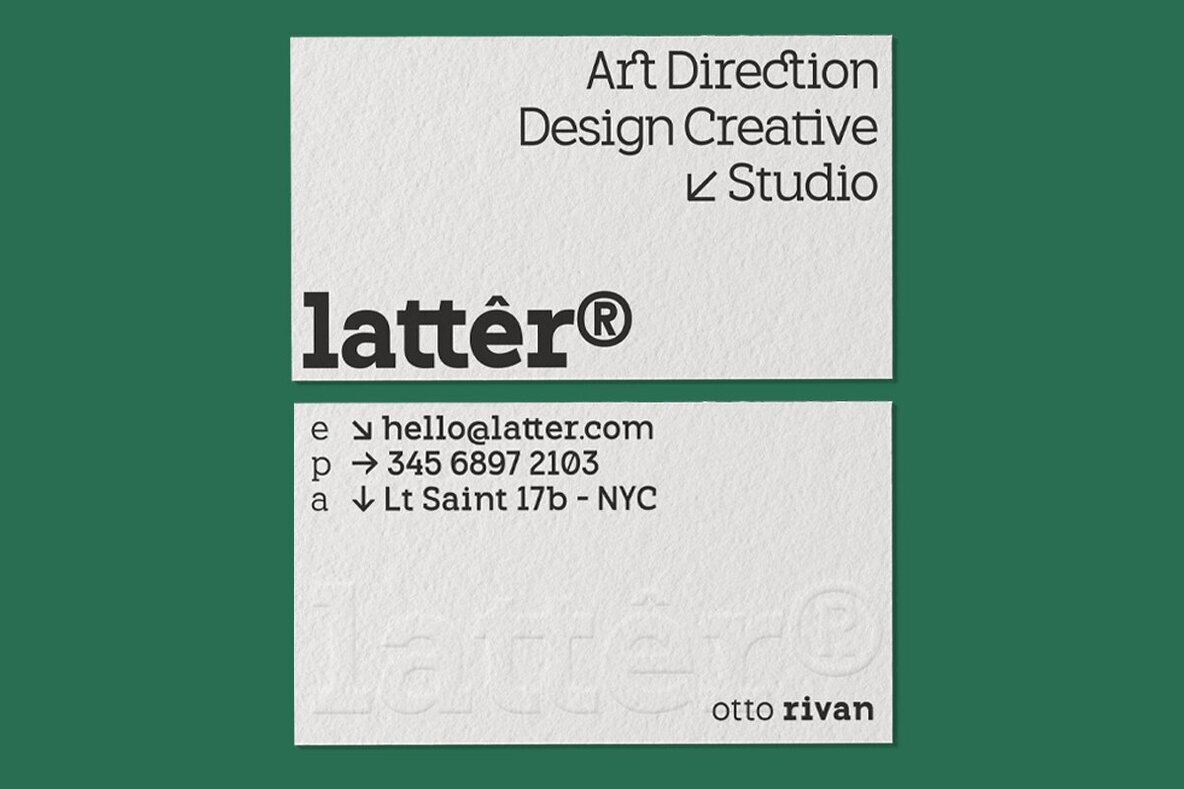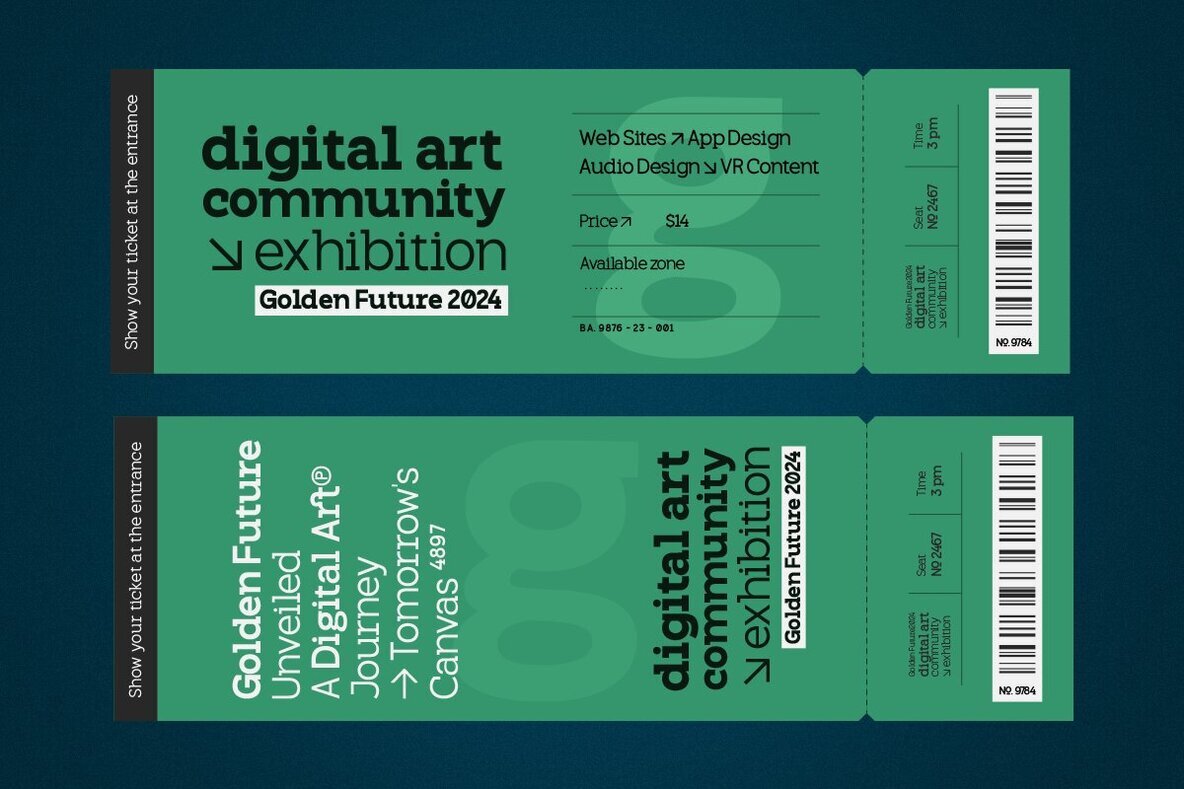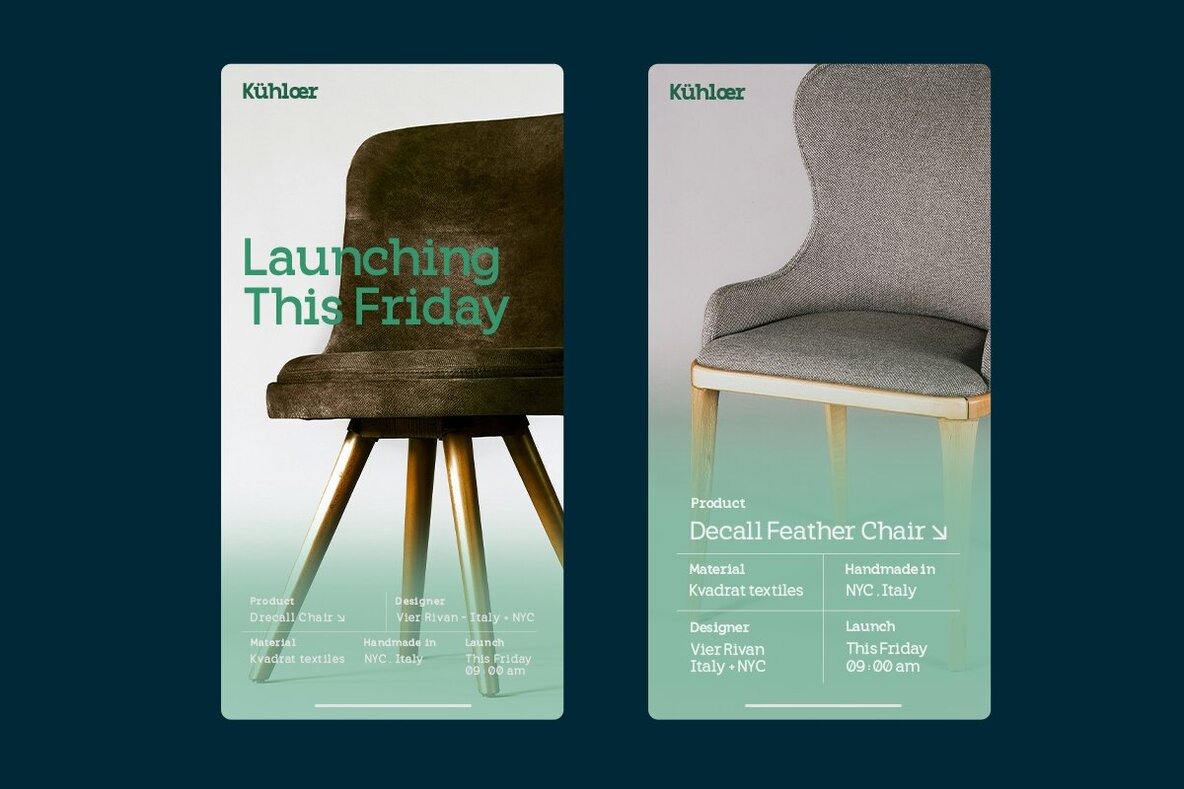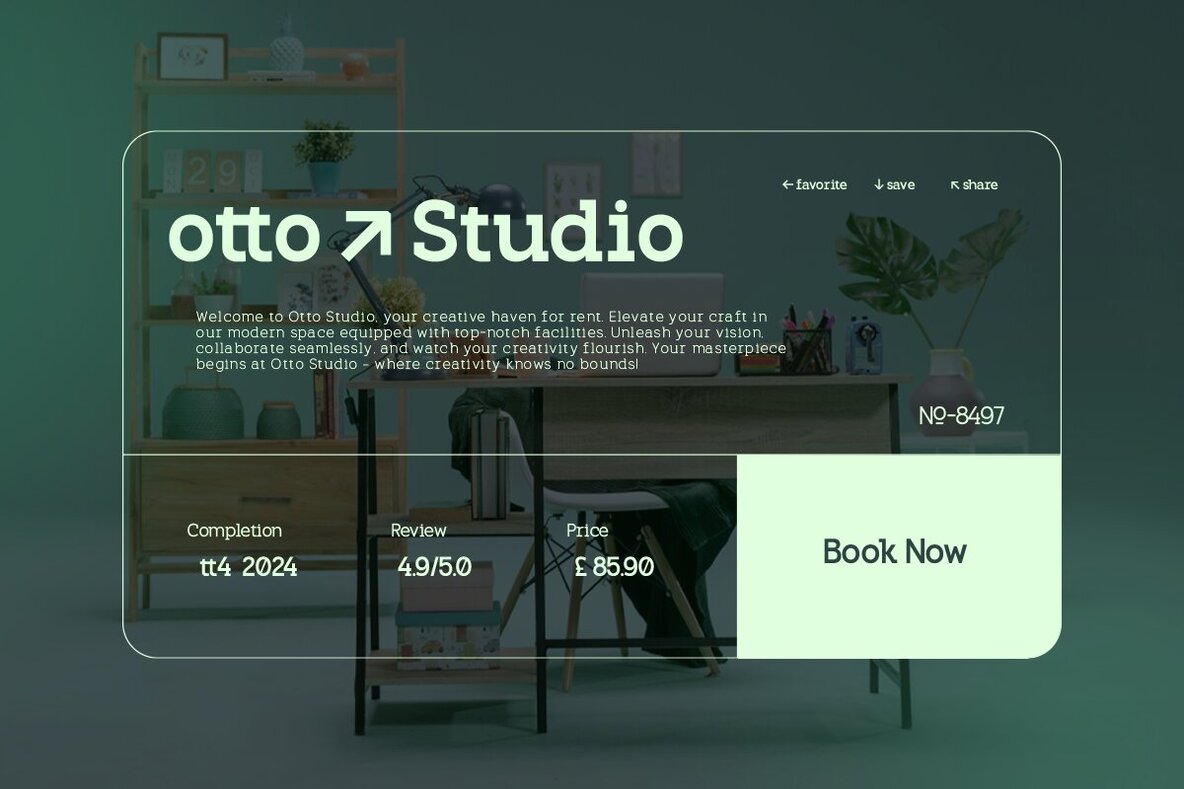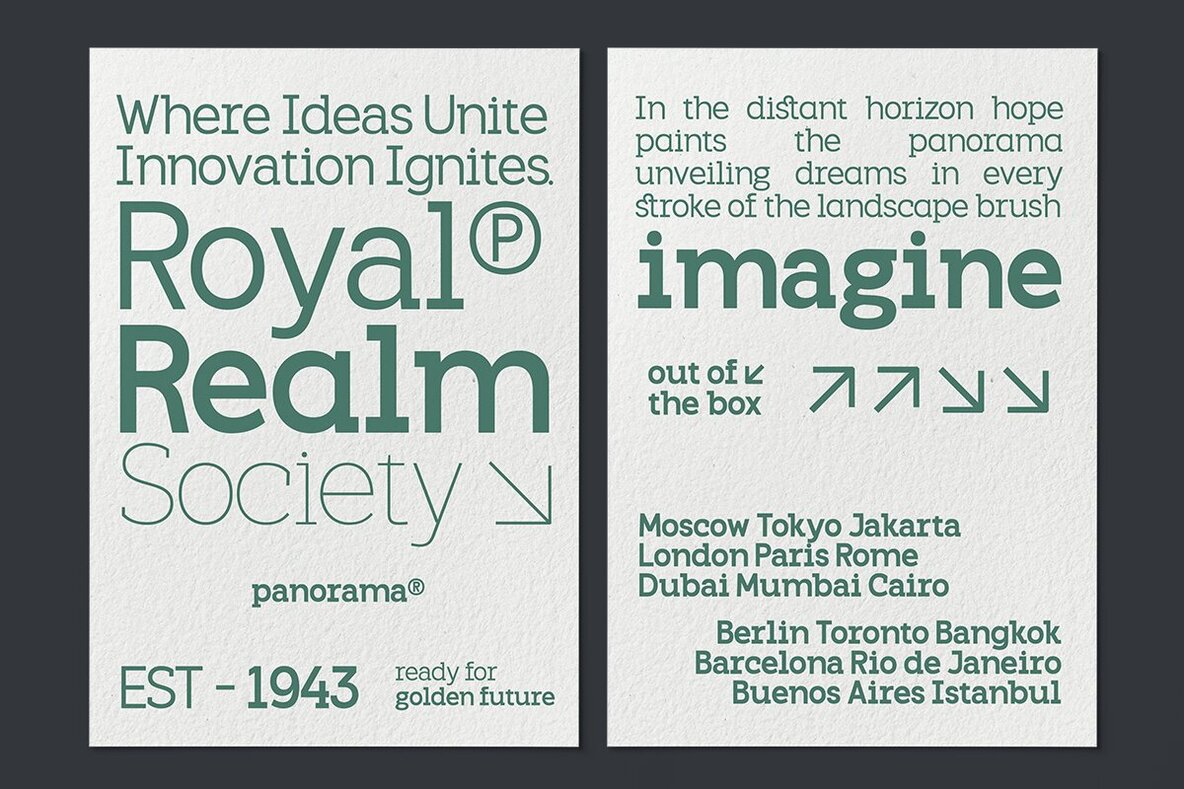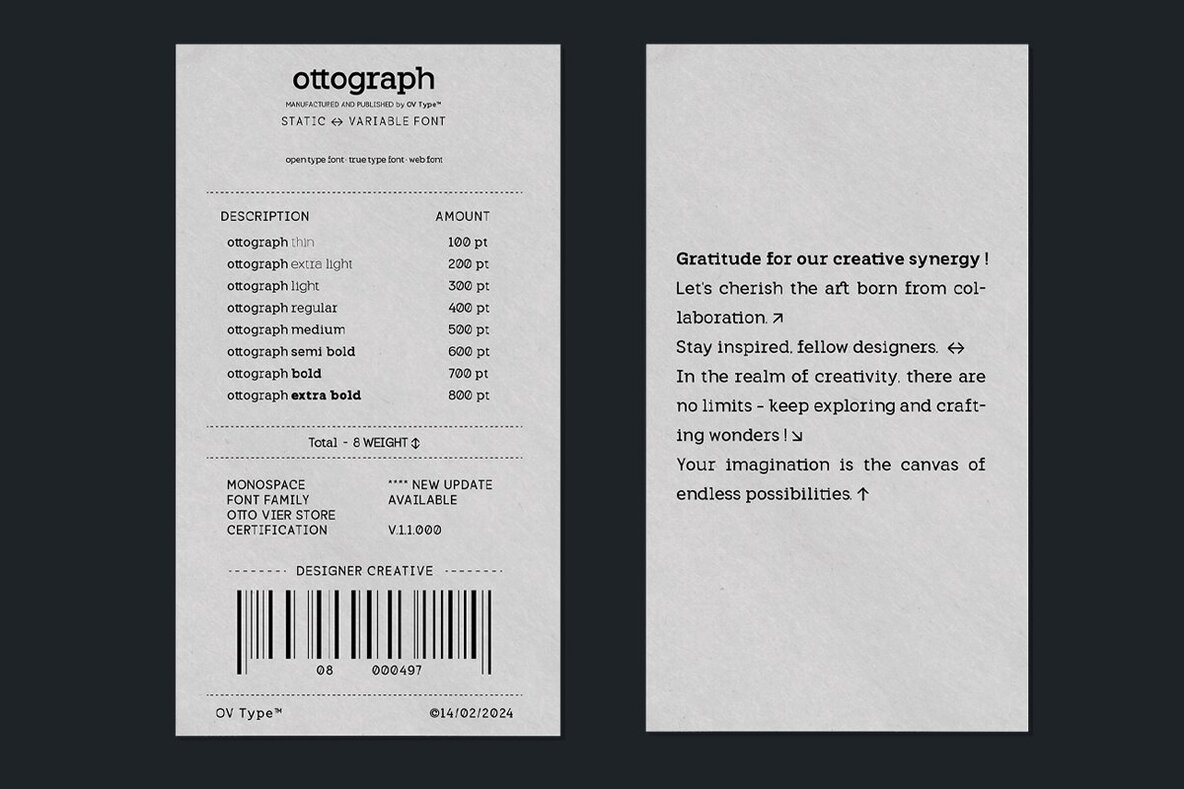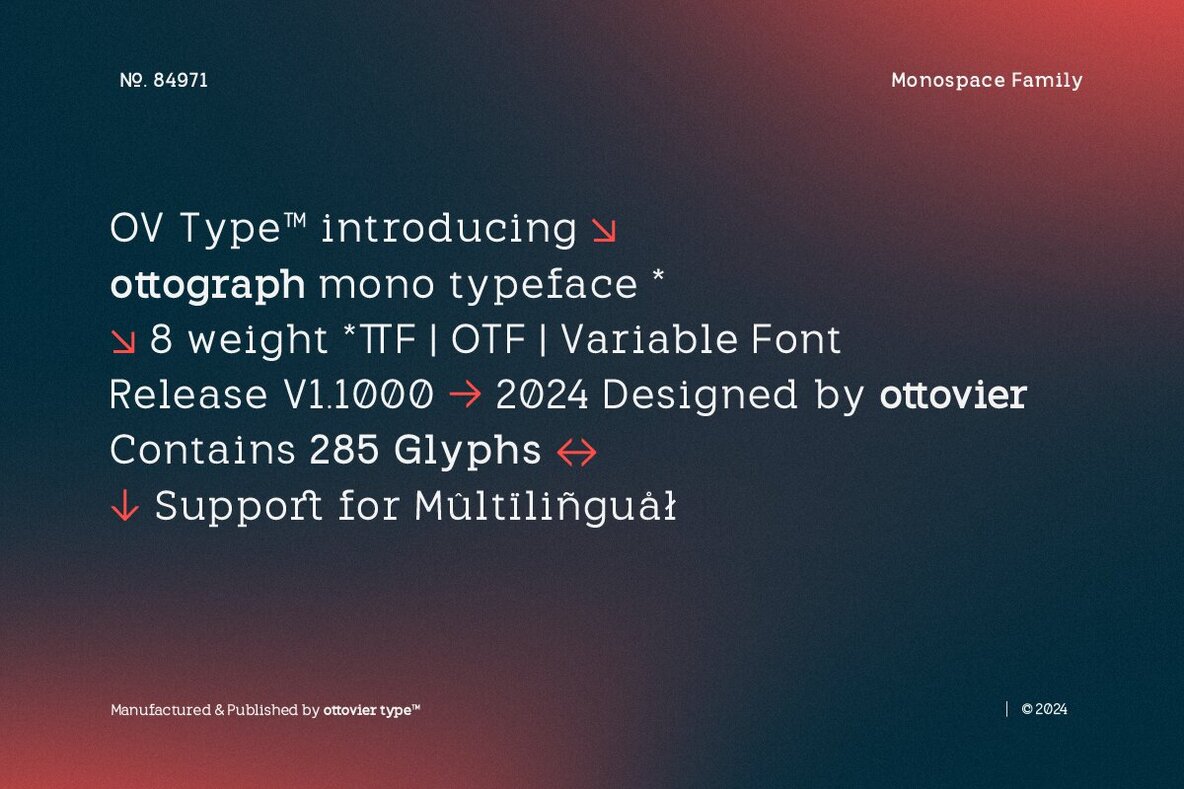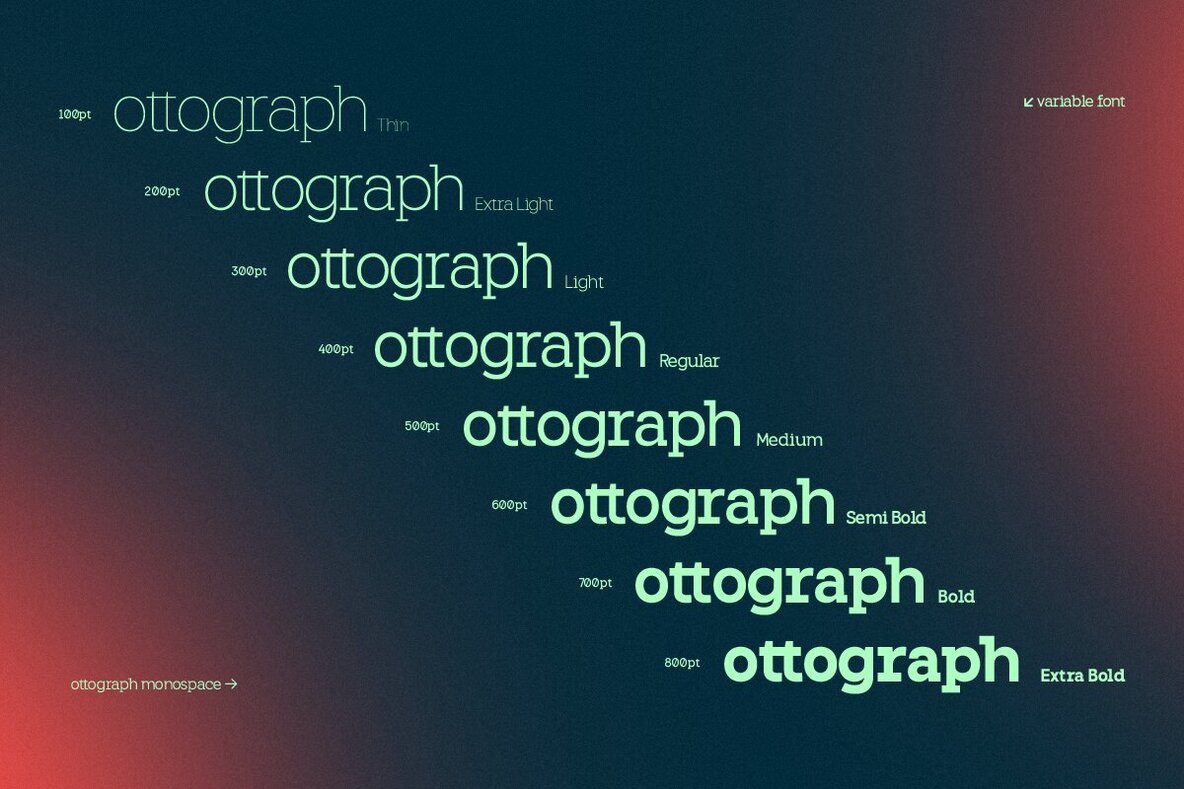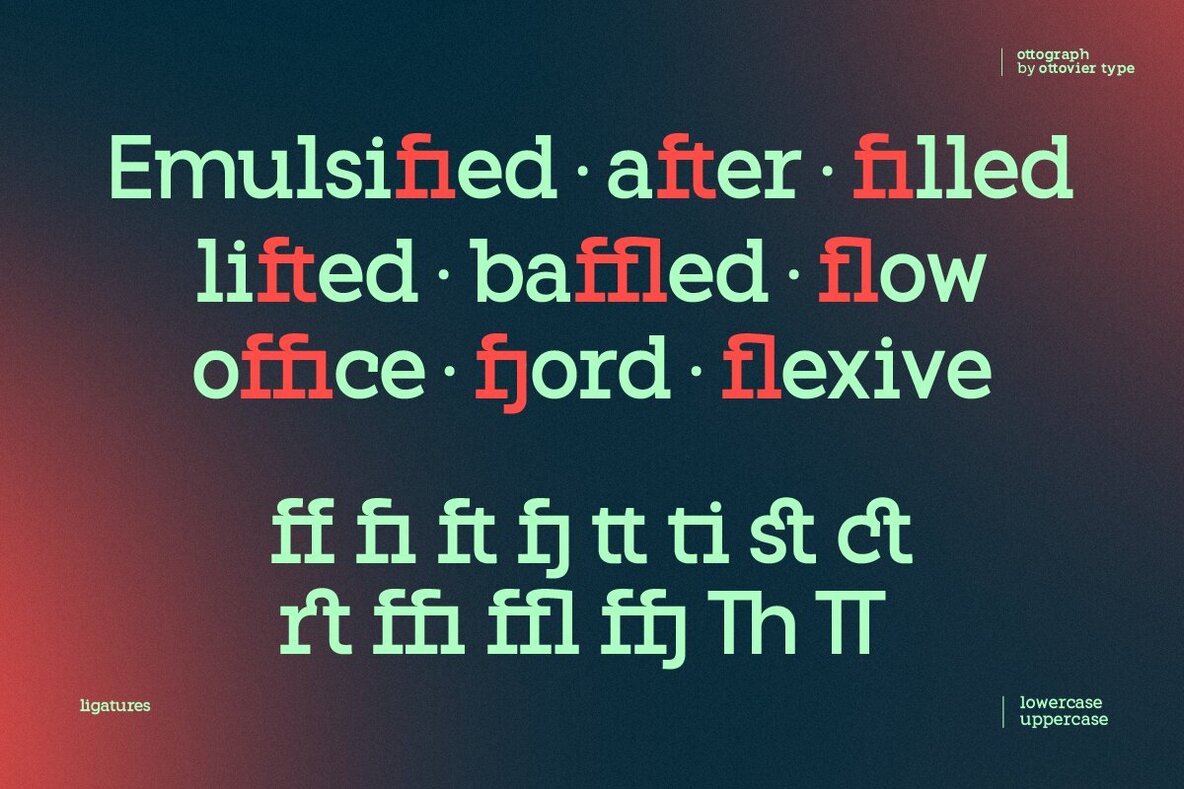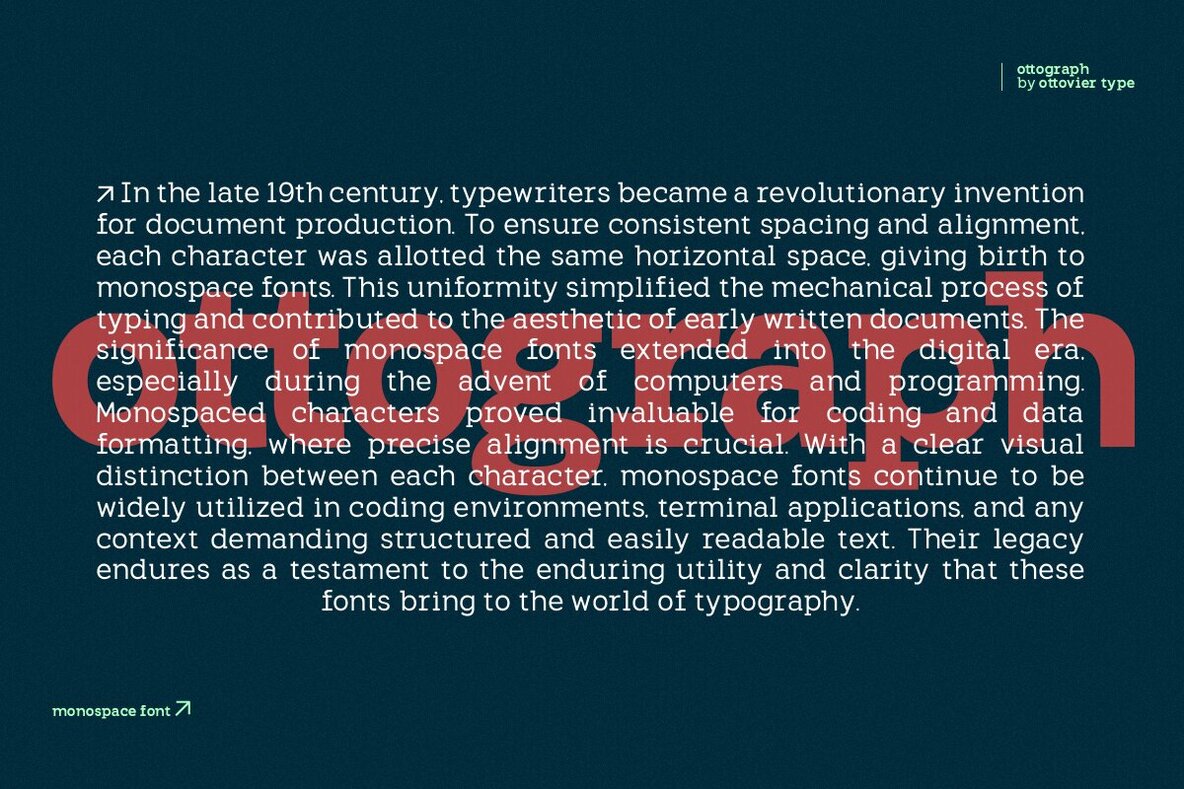
OV Ottograph Font
Hey there! We know finding the perfect font can be a real challenge. That’s why we're excited to introduce OV Ottograph Duospace Font Family. Unlike the usual monospace fonts, OV Ottograph has a cool duospace design that brings a fresh, modern vibe to any project. Whether you’re working on web design, branding, or editorial layouts, this font has you covered. Plus, you’ll get future updates to keep your design toolkit up-to-date. Ready to upgrade your design game? Give OV Ottograph a try! Stay inspired, fellow designers. In the realm of creativity, there are no limits - keep exploring. Your imagination is the canvas of endless possibilities.